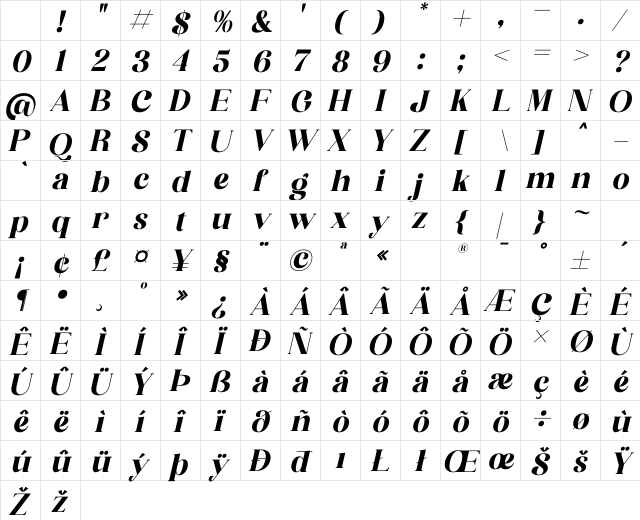
Complete Bergante Italic glyph index. Displaying only characters natively supported by Bergante Italic font.
Bergante is a composed and adaptable typeface that performs quietly and consistently across a wide range of design contexts. The slanted form adds forward momentum and visual energy.
Pro Tip: Use Bergante for emphasis, pull quotes, and subheadings where its slanted energy can add rhythm to the layout.